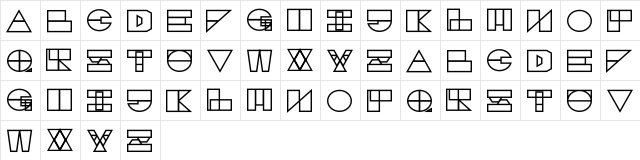
LOGI Line
Design Context for LOGI Typeface
LOGI is a composed and adaptable typeface that performs quietly and consistently across a wide range of design contexts.
Pro Tip: Use LOGI in both headline and body roles to test its range before committing to a single application.